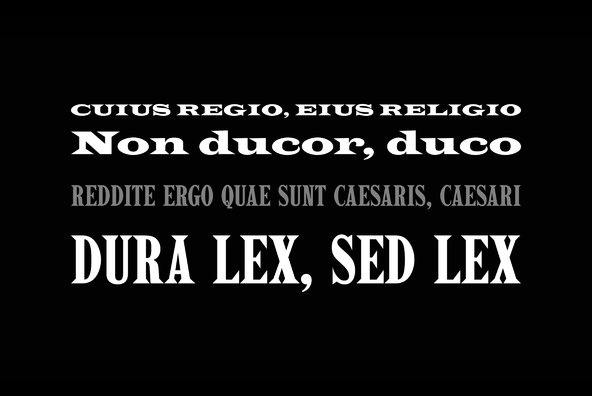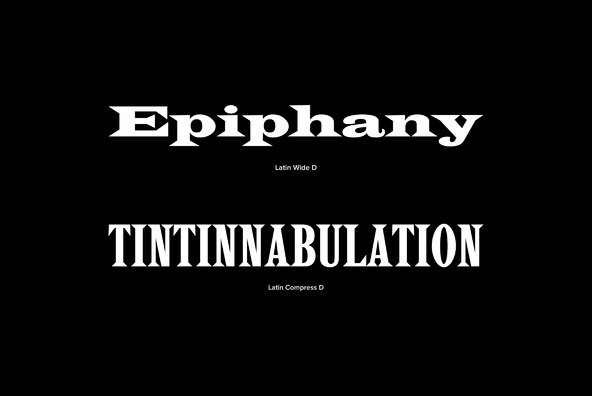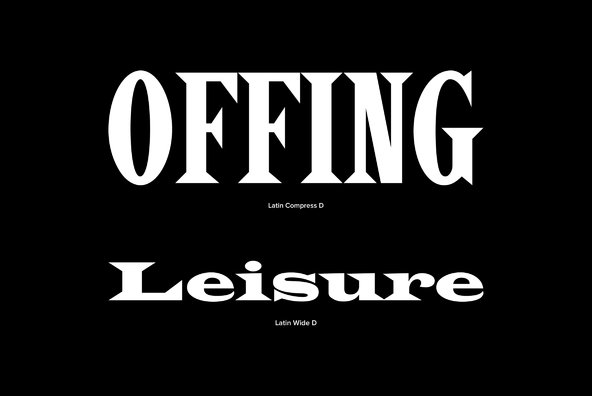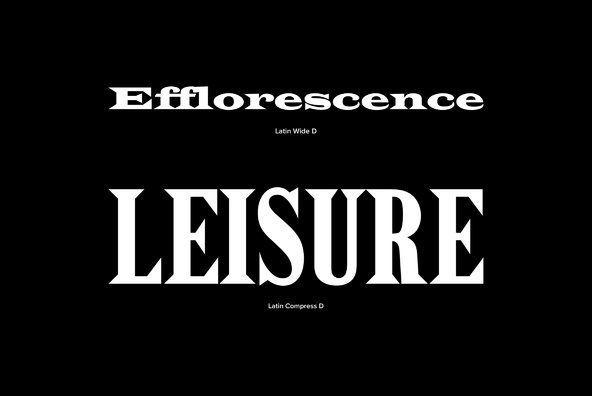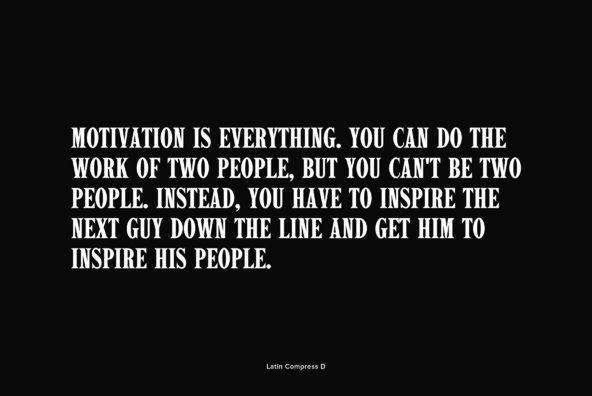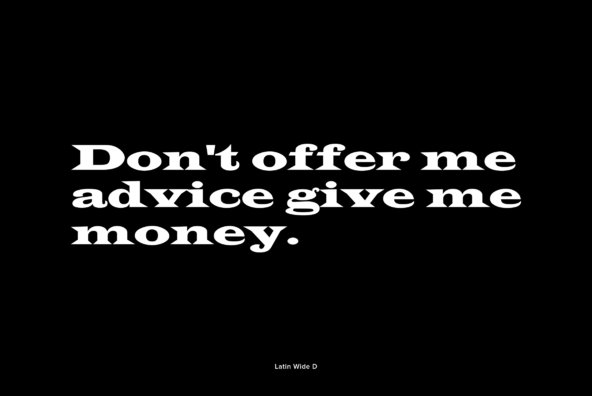
Latin is a retro, vintage and decorative styled serif type design. It works beautifully when used in headlines for posters, but can also be spiced up to work in fashion and branding projects as well. Latin was designed by Achaz Reuss in 1993.